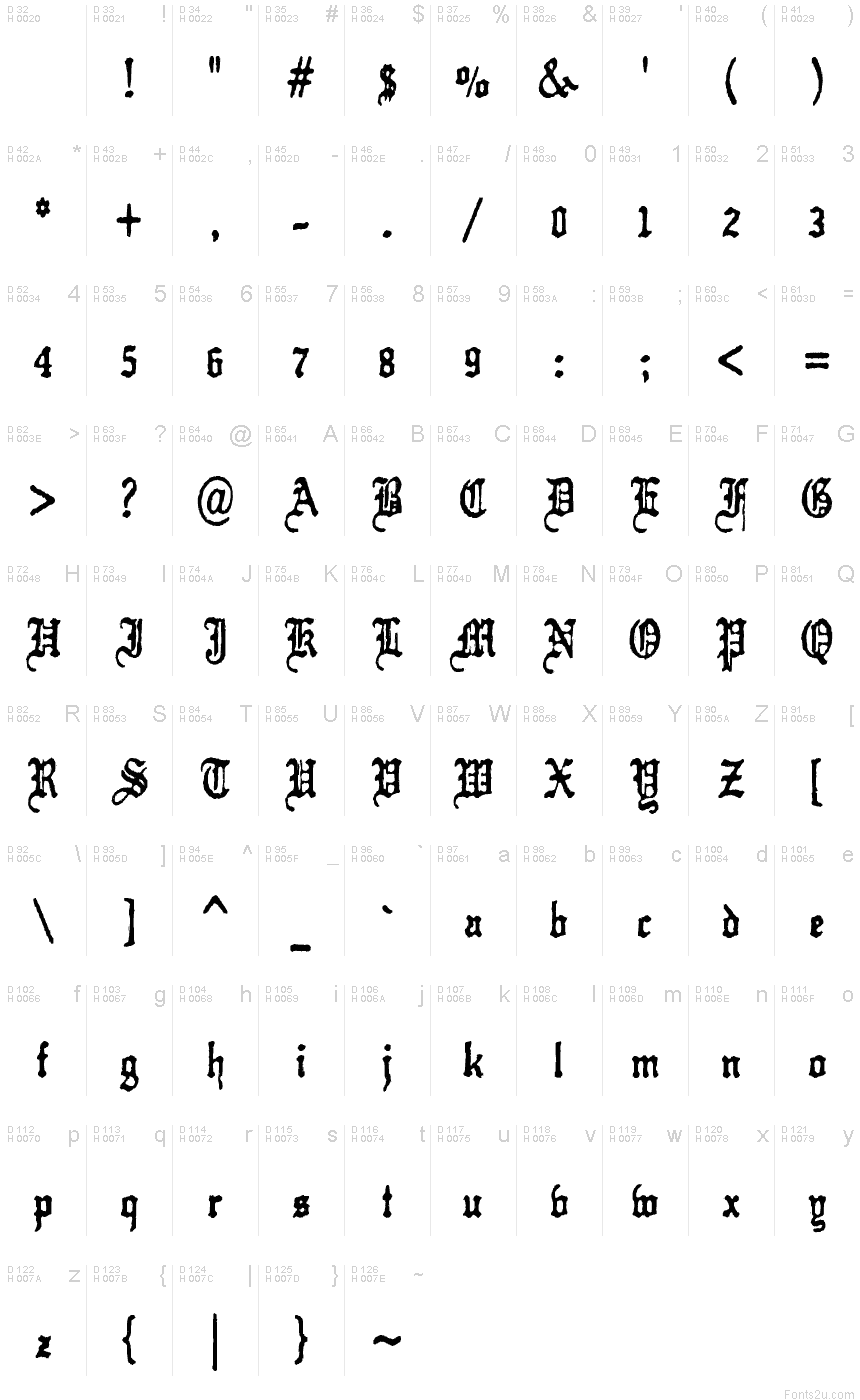
Kraut-type-a-fuck
Kraut-type-a-fuck font by Mr. Fisk is a Gothic medieval font with a rough, ink-blotted texture and ragged edges across the letterforms. The broken finish keeps the blackletter structure intact, but it reads as weathered and hand-cut rather than polished, with a slightly torn edge to every form.
Kraut-type-a-fuck suits album art, metal flyers, beer labels, game titles, tattoo-style merchandise, and small-batch packaging, where that old-world roughness can do most of the visual work. It also fits medieval event posters and gothic invitations when the design needs a dark, printed-on-rough-paper mood.